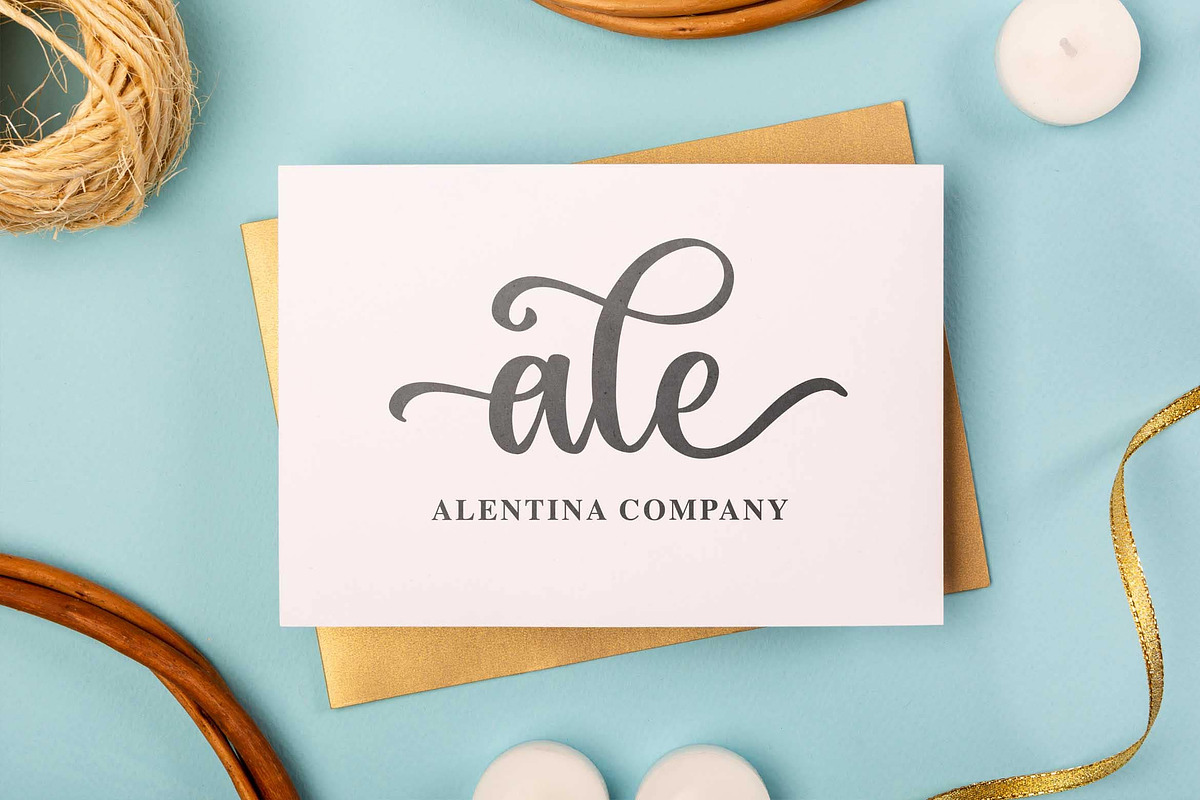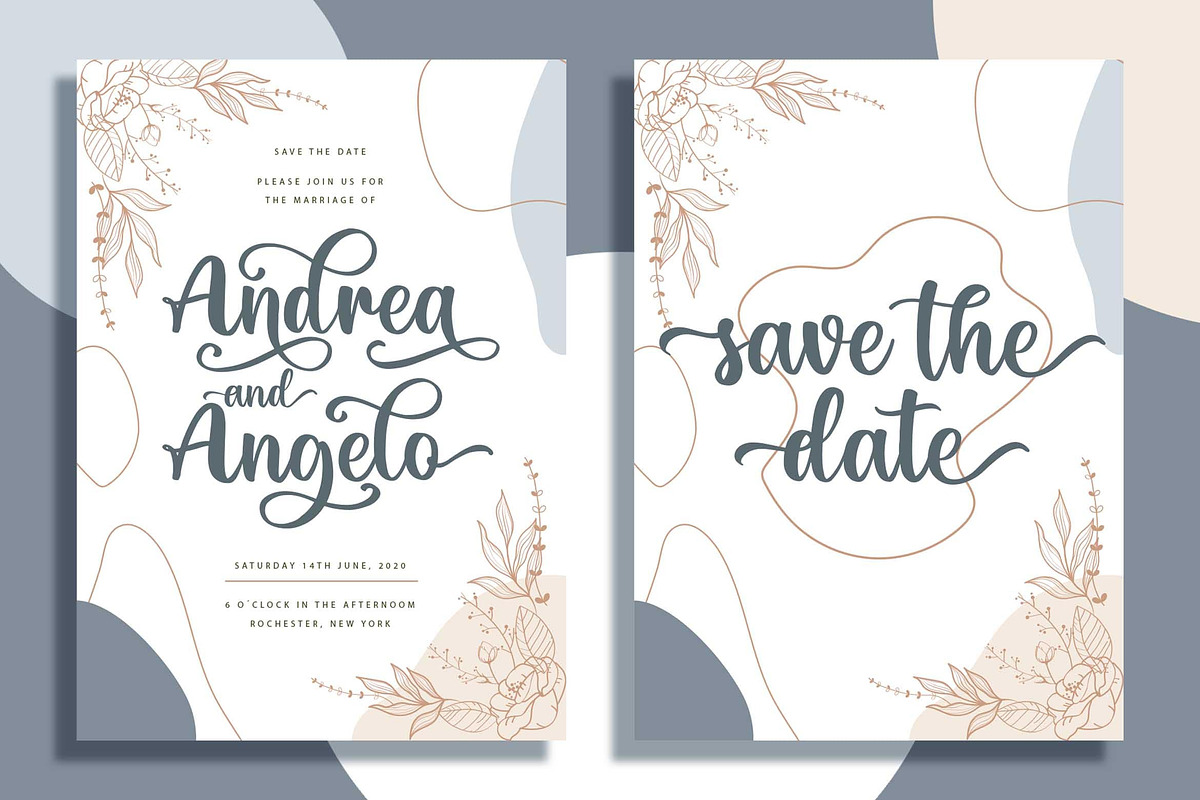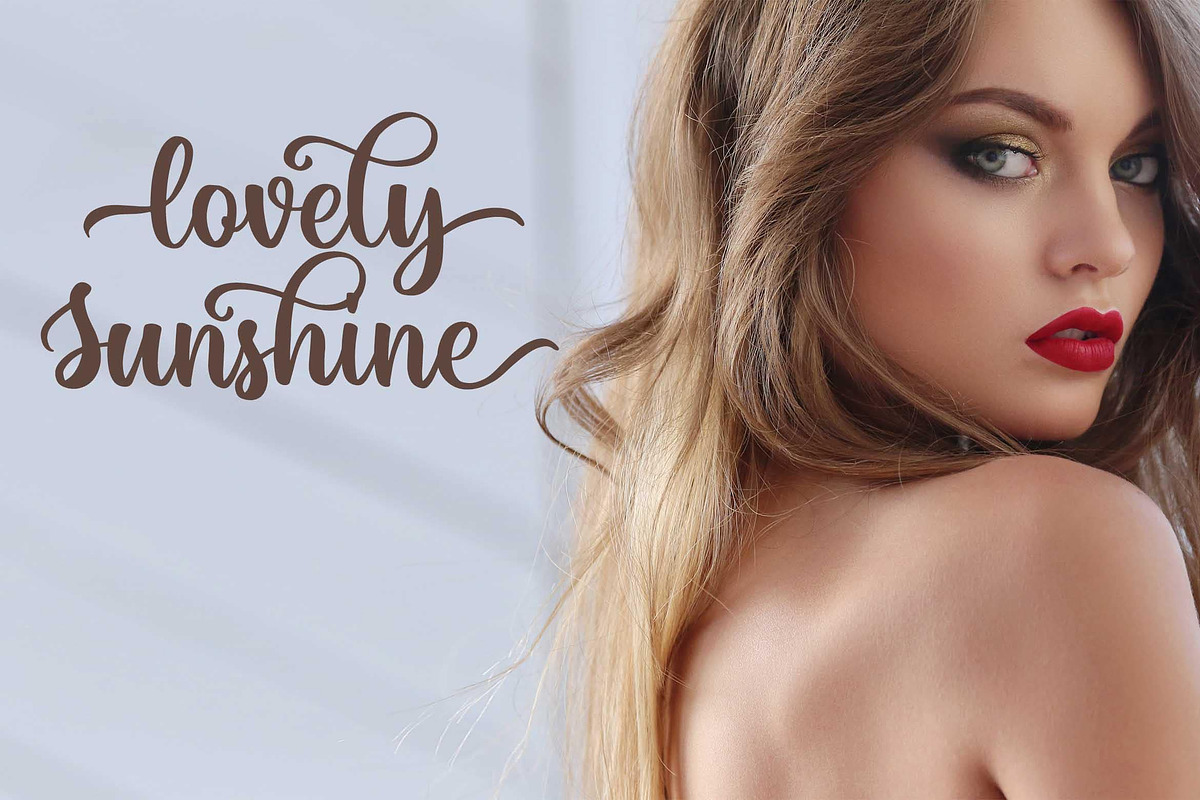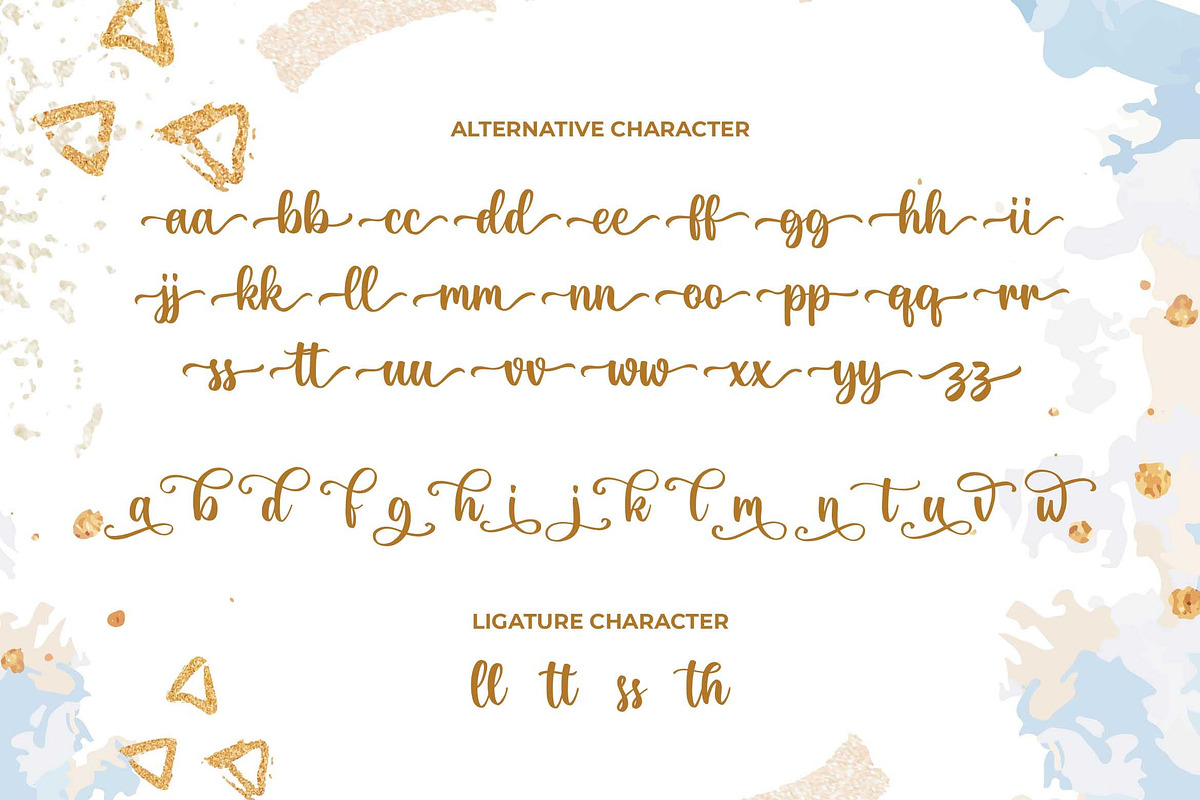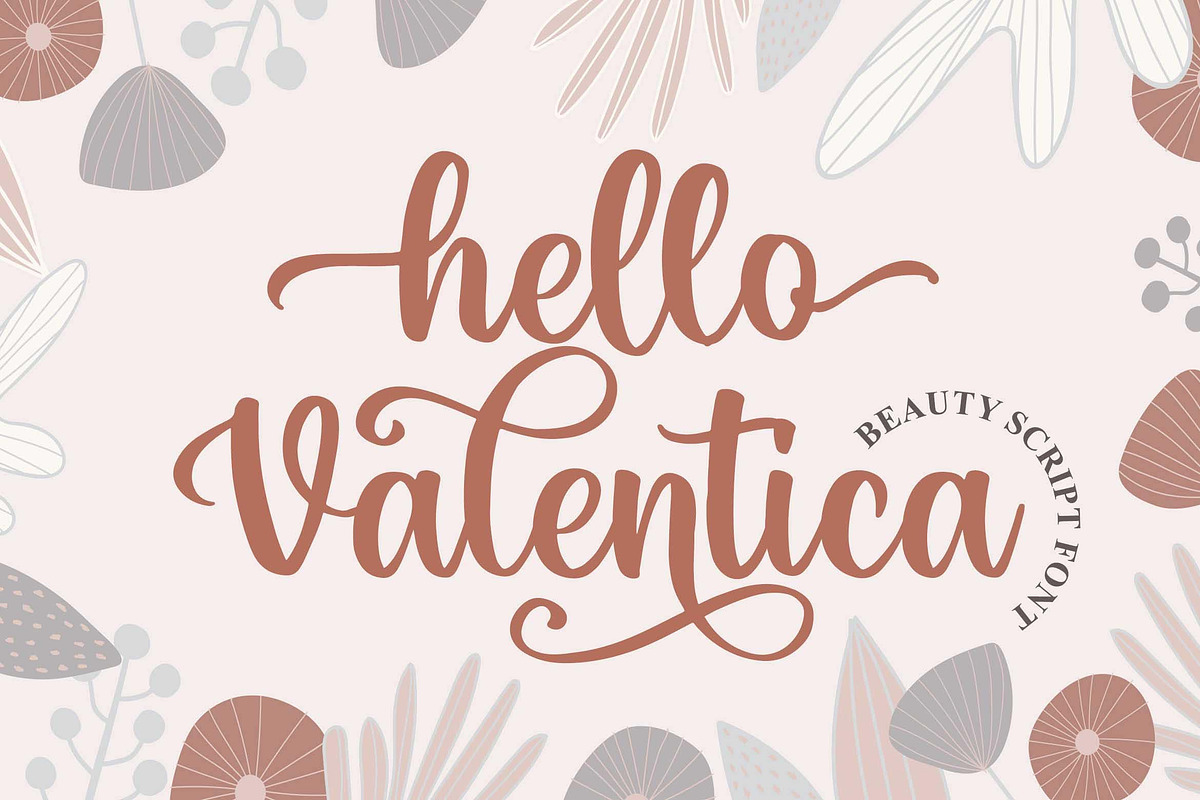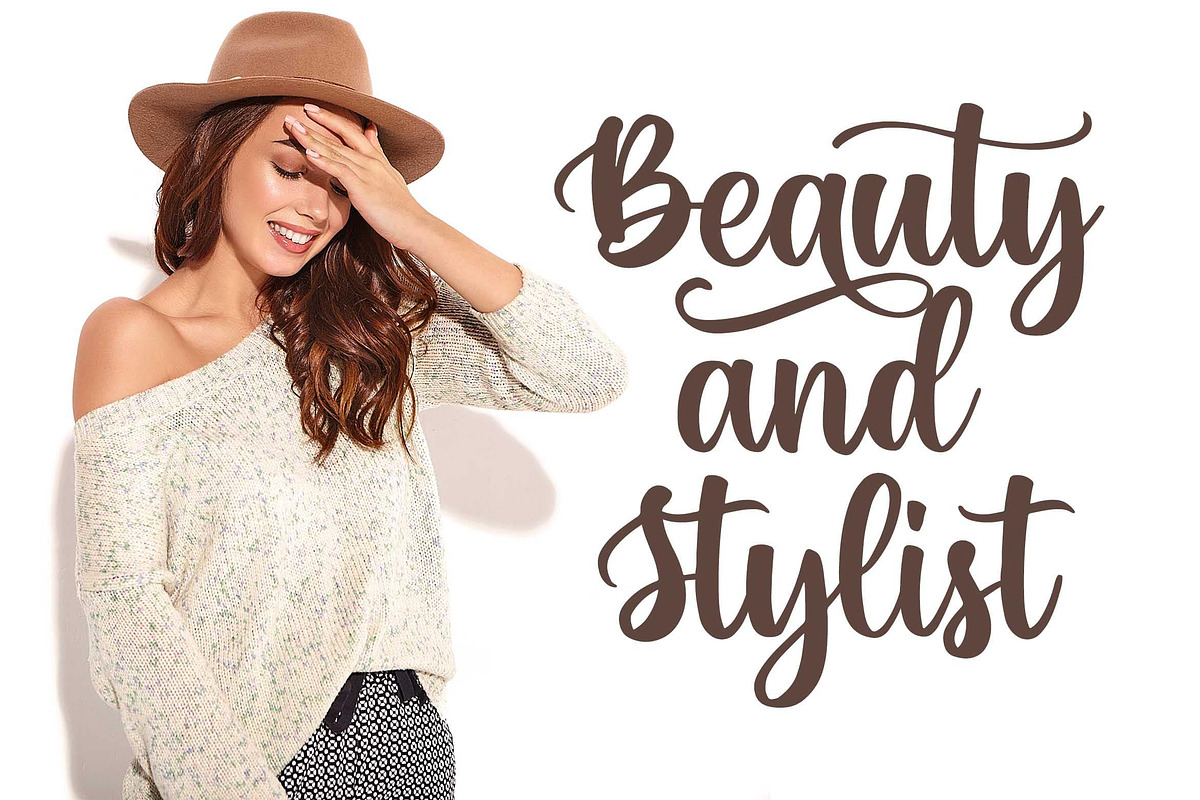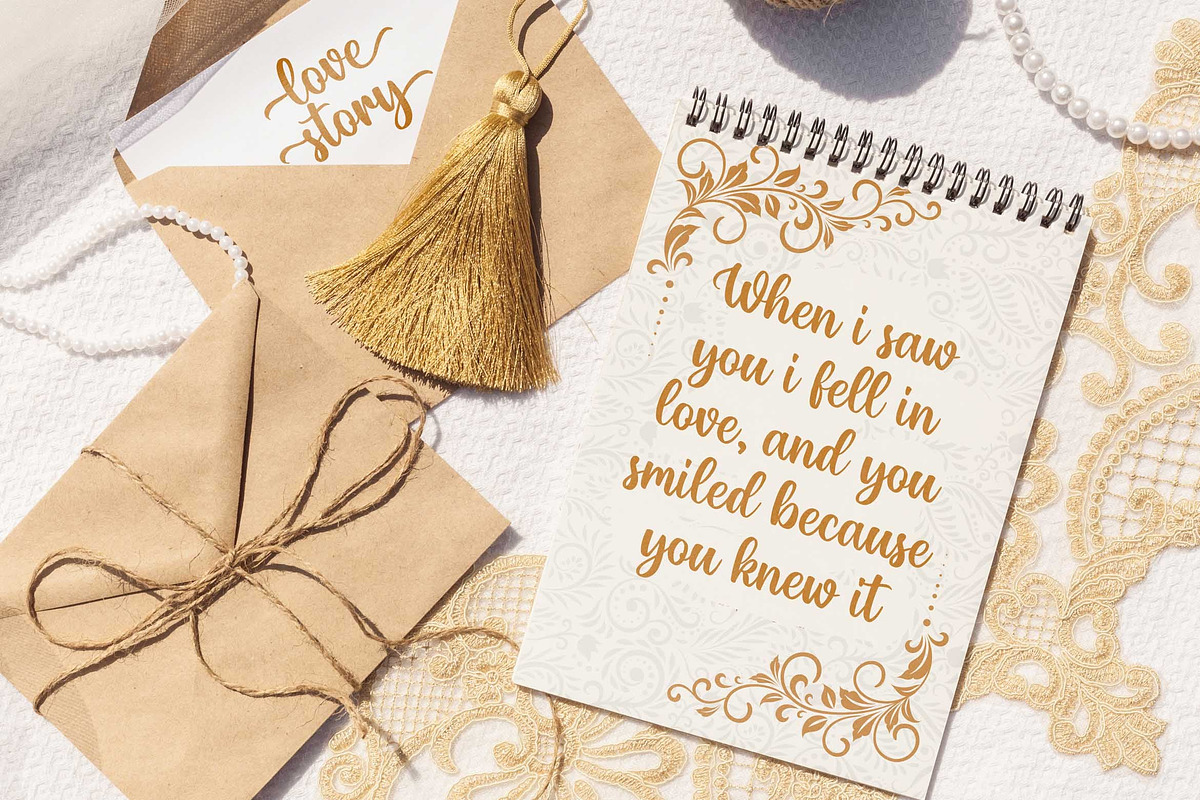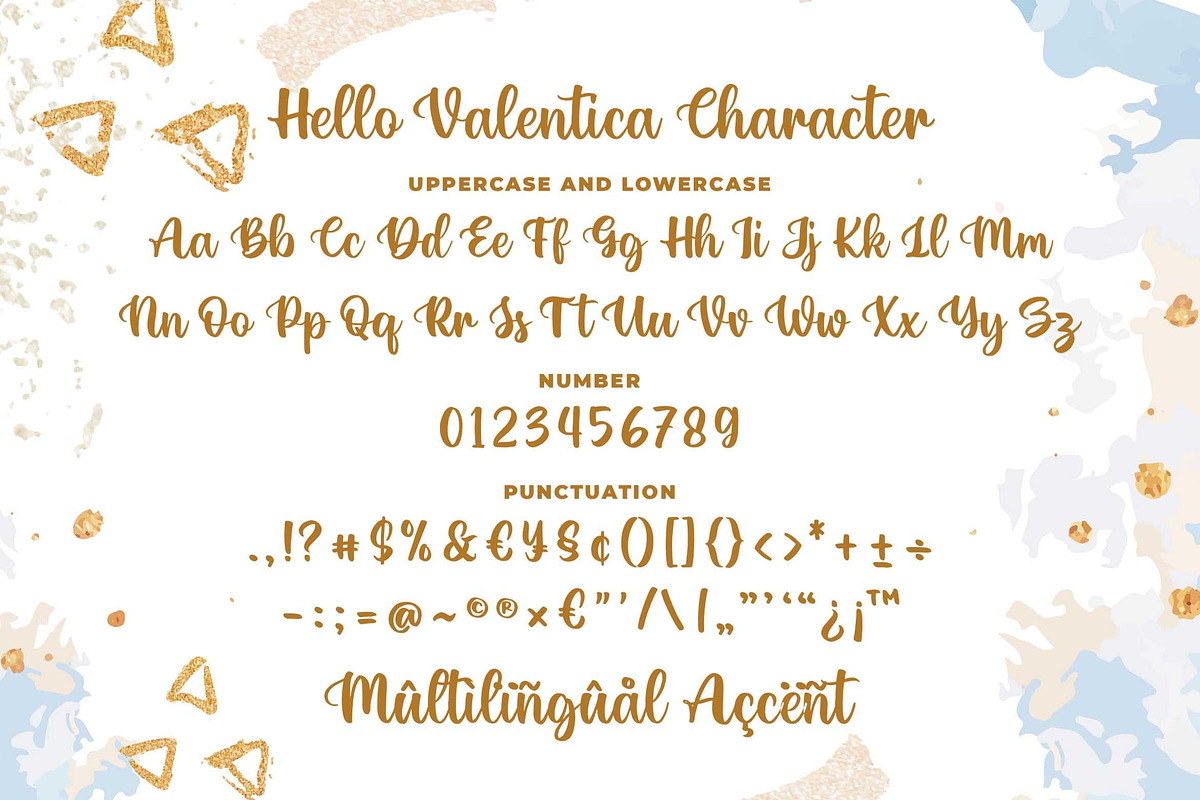
Hello Valentica
Introducing of our new product the name is Hello Valentica a Beauty Script Font. Hello Valentica inspired by modern script this font is a fun theme very good for book cover, wedding invitation, t-shirt, quote, logotype, craft and etc.
MULTILINGUAL ACCENT :
ØÆøæ¢ÐŒœÁĂÂÀÄĄÅÃǼĆČÇĈĊĎÉĔĚÊËĖÈĘĞĜĢĠĤÍĬÎÏİÌĮĨĴĶĹĽĻĿŃŇŅÑÓŎÔÖÒŐǾÕŔŘŖŚŠŞŜȘ ŤŢÚŬÛÜÙŰŲŮŨẂŴẄẀÝŶŸỲŹŽŻáăâäàąåãǽćčçĉċďéĕěêëėèęğĝģġĥíîïìįĩĵķĺľļŀńʼnňņñóŏôöòőǿõŕřŗśšşŝșťţ ŭûüűùųůũẃŵẅẁýŷÿỳźžż